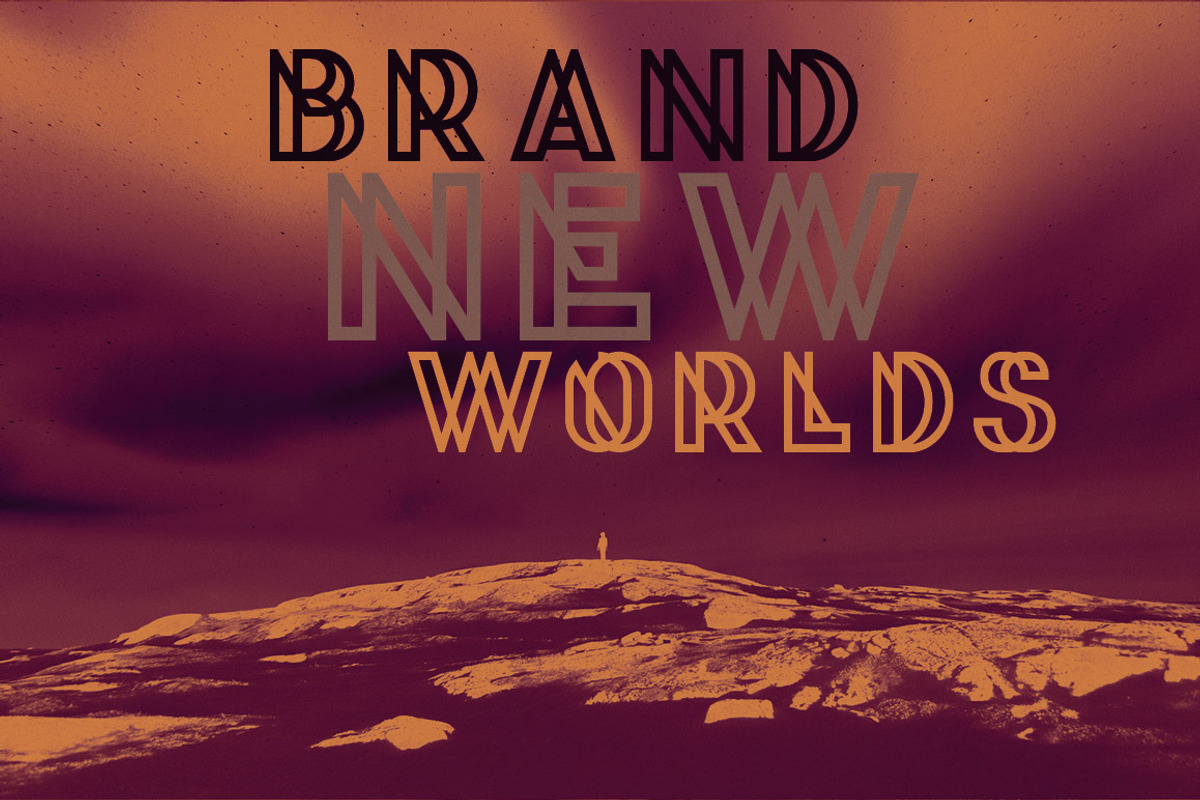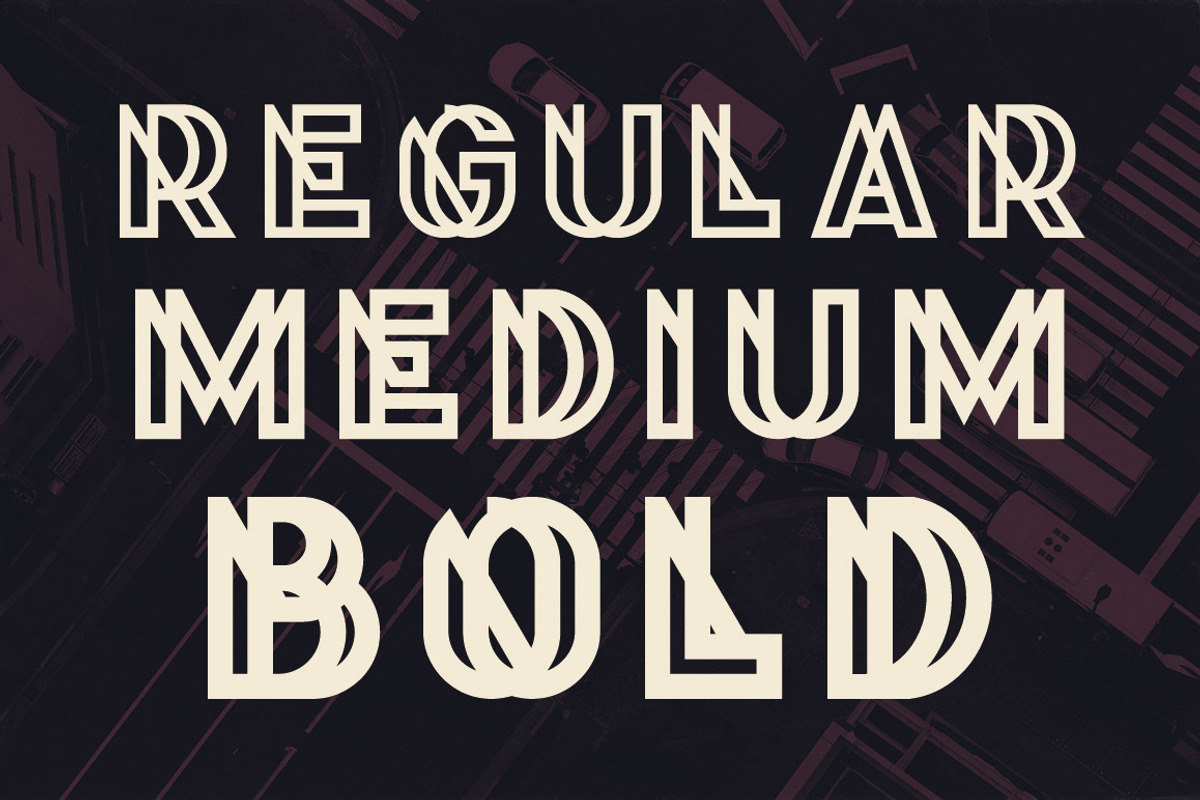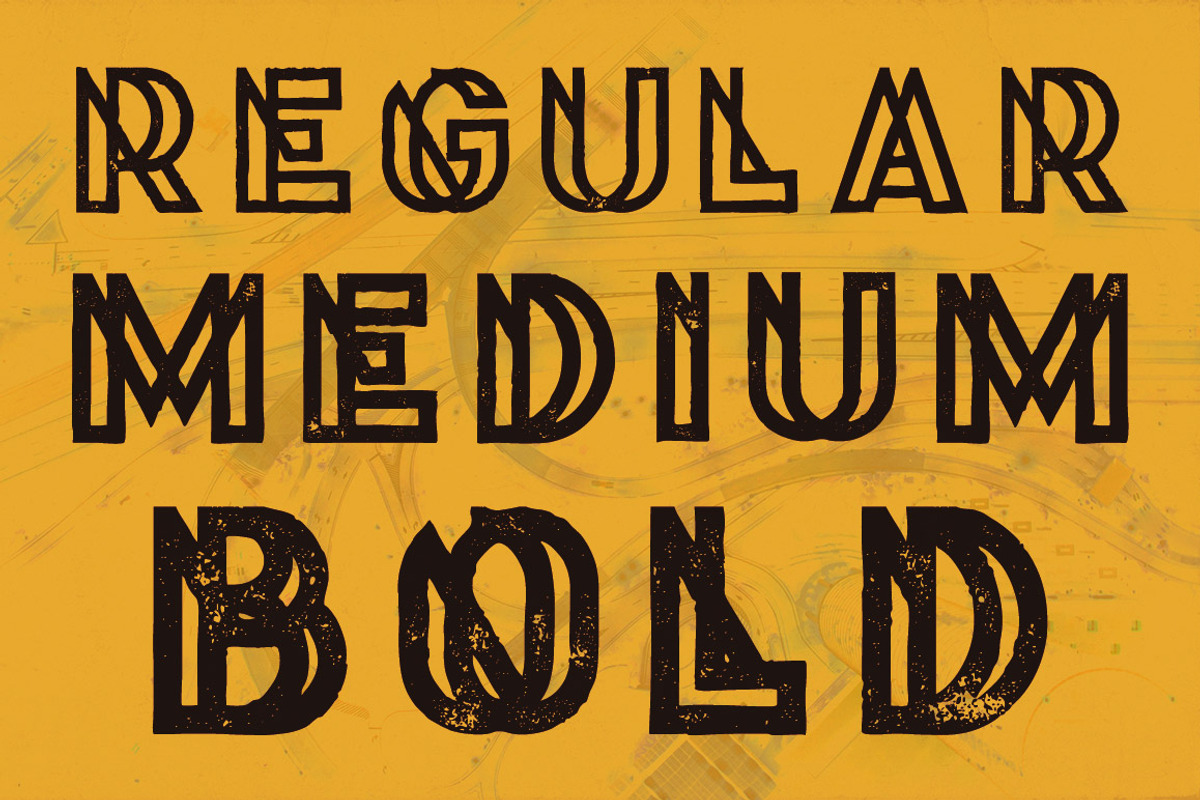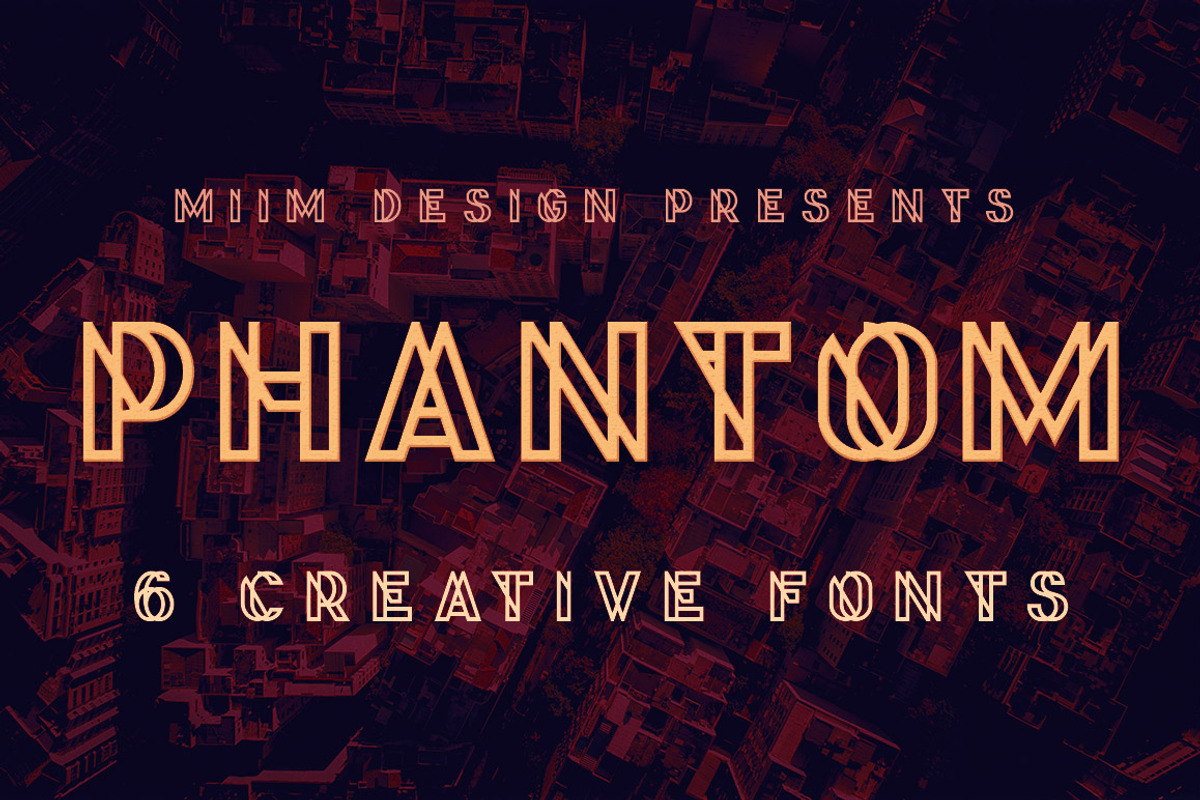
Phantom - Display Font
Phantom - Display Font by MIIM is a font selected for branding, posters, packaging, typography.
Phantom - Display Font by MIIM fits naturally into Branding, posters, packaging, typography.